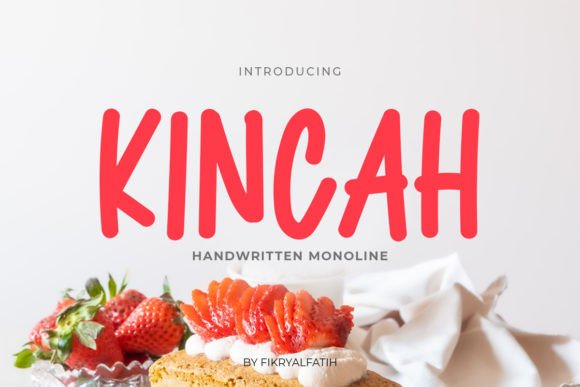
Welcome to the exquisite realm of Kincah, a handcrafted script font that will weave a tapestry of captivating designs. Step into a world where playful glyphs dance across the digital canvas, infusing your creations with a dash of whimsy and a sprinkle of elegance.
Kincah's monoline stroke evokes the charm and intimacy of a handwritten note, adding a personal touch to your designs. Its fluid curves and graceful flourishes lend an air of sophistication, making it the perfect choice for creating logos that exude both warmth and professionalism.
Journey through your creative projects with Kincah as your trusted companion. Whether you're crafting enticing website menus, designing eye-catching social media posts, or conjuring up innovative brand identities, this font will effortlessly elevate your vision.
Experience the transformative power of Kincah and witness how its enchanting presence breathes life into your digital creations. Its versatility knows no bounds, allowing you to effortlessly craft designs that resonate with your audience and leave a lasting impression.
Unleash your creativity and embark on a journey of artistic expression with Kincah. Let its playful spirit ignite your imagination and guide you towards designs that captivate and inspire.